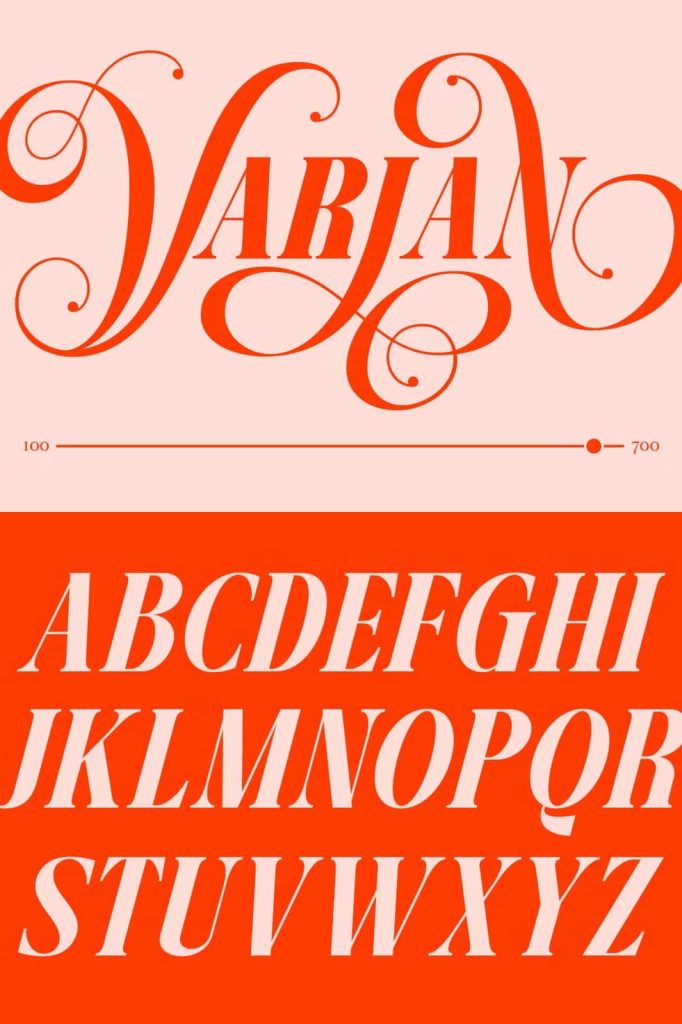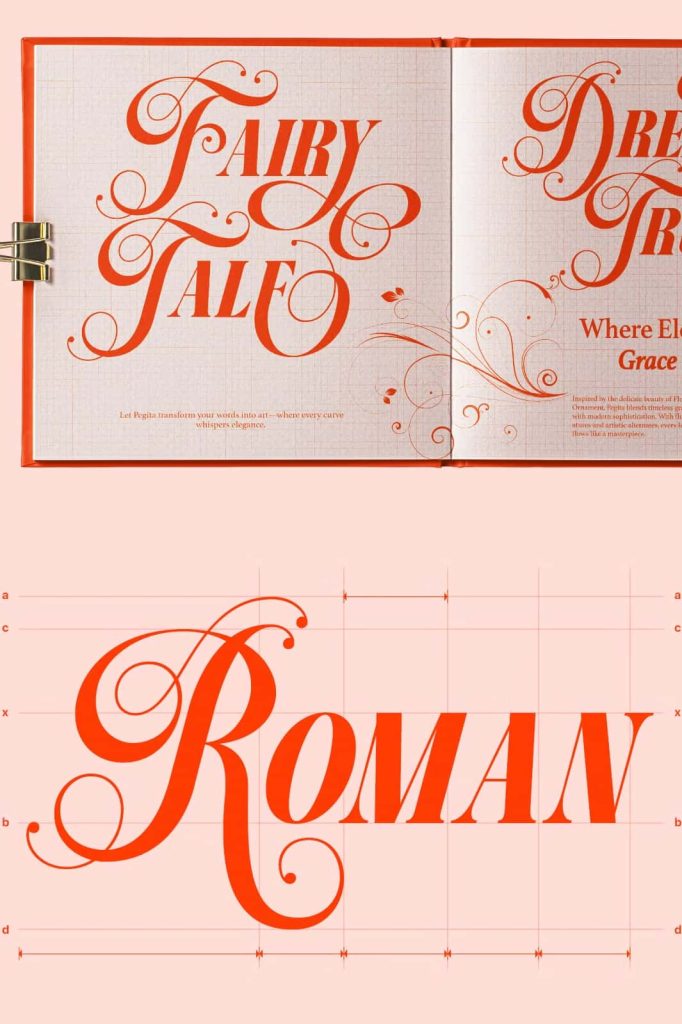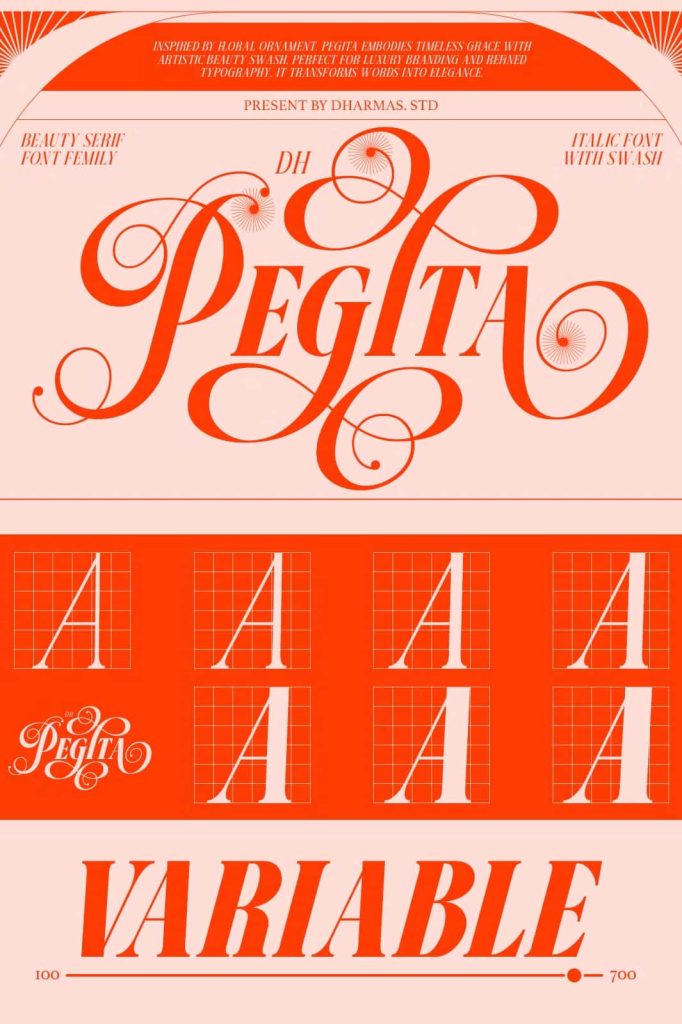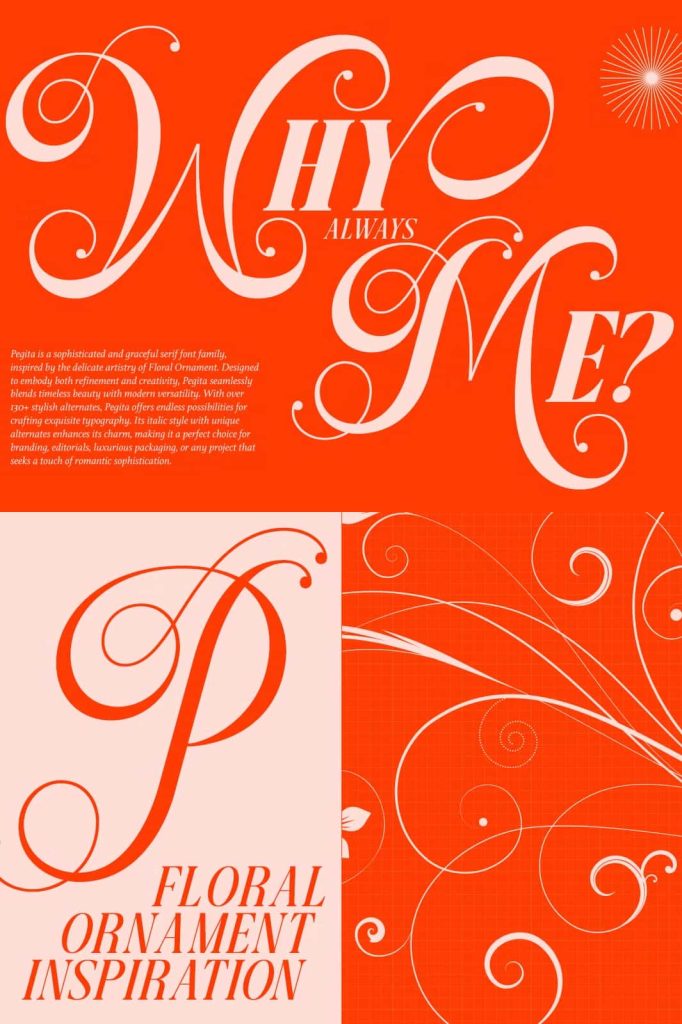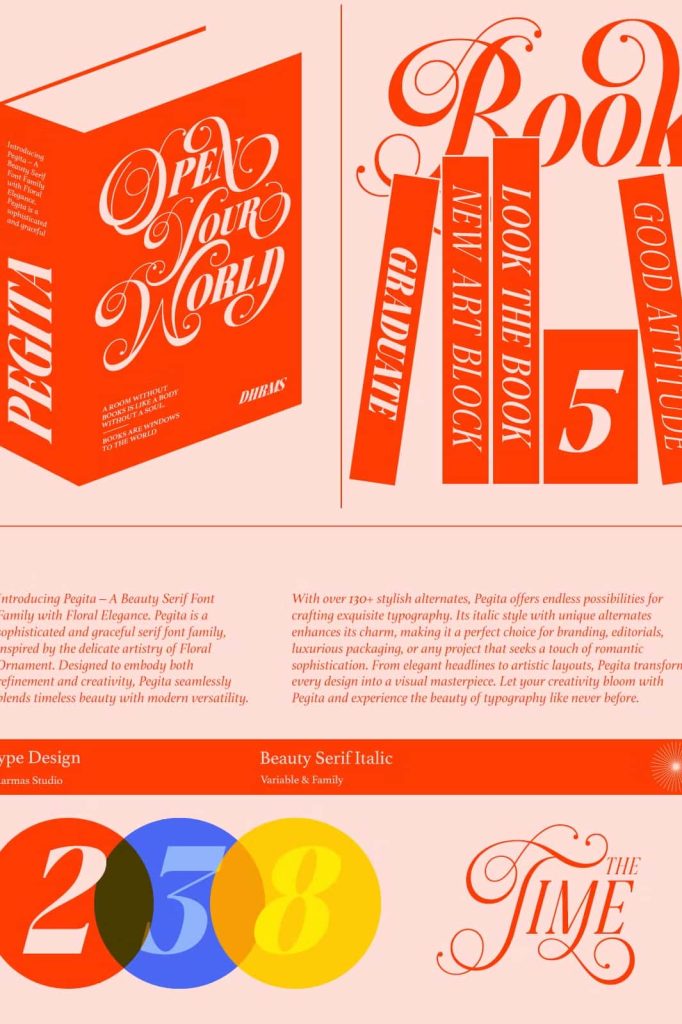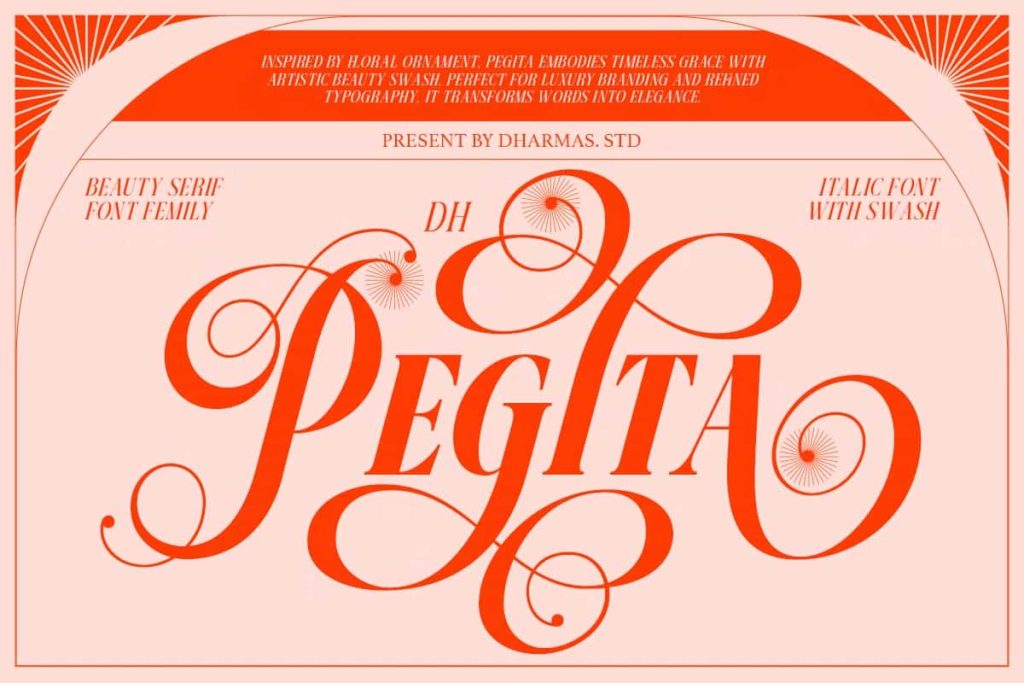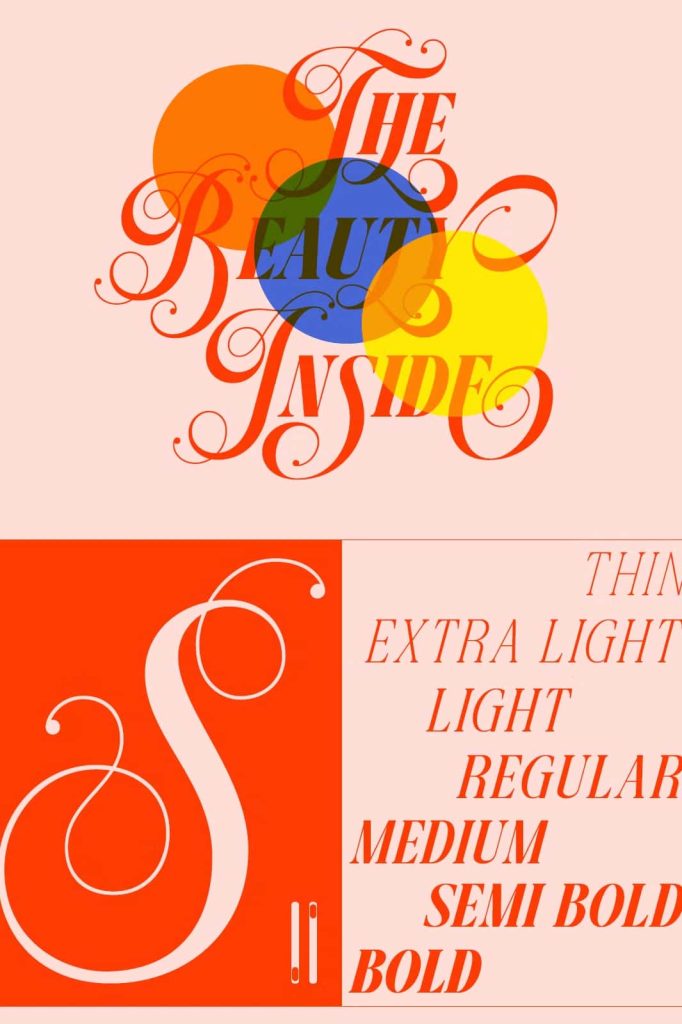
Dh Pegita: A Refined Serif Display Font Inspired by Floral Elegance
Dh Pegita is a refined serif display font created to express elegance, sophistication, and modern charm. Inspired by the delicate beauty of floral ornaments, this typeface translates organic shapes and graceful details into structured, readable letterforms. The result is a display font that feels luxurious and artistic while remaining highly functional for contemporary design needs.
This font is ideal for designers who want to communicate refinement and visual harmony. Dh Pegita brings a sense of calm confidence and tasteful decoration, making it especially suitable for premium and high-end design projects that require both beauty and clarity.
Floral Ornament Inspiration with a Modern Interpretation
The design of Dh Pegita draws from floral ornamentation, a timeless source of artistic inspiration found in classical architecture, decorative arts, and traditional typography. Rather than directly replicating ornamental patterns, this font abstracts floral elegance into subtle curves, balanced proportions, and carefully shaped serifs.
This approach allows Dh Pegita to feel decorative without becoming excessive. The font maintains a clean and polished appearance, making it versatile across a wide range of creative applications. Its ornamental influence adds personality, while its structured design ensures consistency and readability.
Elegant Letterforms with Visual Balance
Each character in Dh Pegita is crafted with attention to detail and proportion. The refined serifs guide the eye smoothly across words, while the gentle contrast between thick and thin strokes adds depth and sophistication. This visual balance helps the font perform beautifully in display settings where typography plays a central role.
A Serif Display Font for Sophisticated Design Projects
Dh Pegita excels as a serif display font, especially in projects where visual impact and elegance are essential. Its refined appearance makes it an excellent choice for luxury branding, editorial headlines, fashion layouts, and premium packaging designs. When used at larger sizes, the font reveals its ornamental inspiration while maintaining a clean and modern feel.
Designers can rely on Dh Pegita to create strong visual hierarchy and elevate brand perception. The font communicates quality, craftsmanship, and attention to detail, all of which are critical elements in high-end design work.
Perfect for Branding, Editorial, and Luxury Packaging
In branding and visual identity systems, Dh Pegita adds a distinctive and memorable character. It works particularly well for beauty brands, lifestyle products, fashion labels, and boutique businesses that want to convey elegance and exclusivity. As a logo or headline font, it strengthens brand recognition through its refined and artistic presence.
Editorial designers can use Dh Pegita for magazine covers, section titles, and feature headlines. Its serif structure supports readability while its decorative influence adds visual interest. In luxury packaging, the font enhances product presentation and reinforces a premium aesthetic that appeals to discerning audiences.
Blending Classic Aesthetics with Contemporary Versatility
One of the key strengths of Dh Pegita is its ability to bridge classic aesthetics and modern design sensibilities. While the font references traditional serif typography and ornamental influences, it is optimized for modern layouts, digital platforms, and print production. This versatility allows designers to use it confidently across different media without compromising style or performance.
A Timeless Typeface for High-End Creative Work
Dh Pegita is more than a decorative serif font. It is a thoughtfully designed typeface that supports expressive creativity while maintaining professional standards. Its refined details, balanced structure, and modern adaptability make it a valuable asset for designers who work on premium and sophisticated projects.
If you are looking for a serif display font that captures floral elegance, classic refinement, and contemporary charm, Dh Pegita offers a timeless solution. This typeface empowers designers to create visually rich and elegant compositions that stand out with grace and confidence.